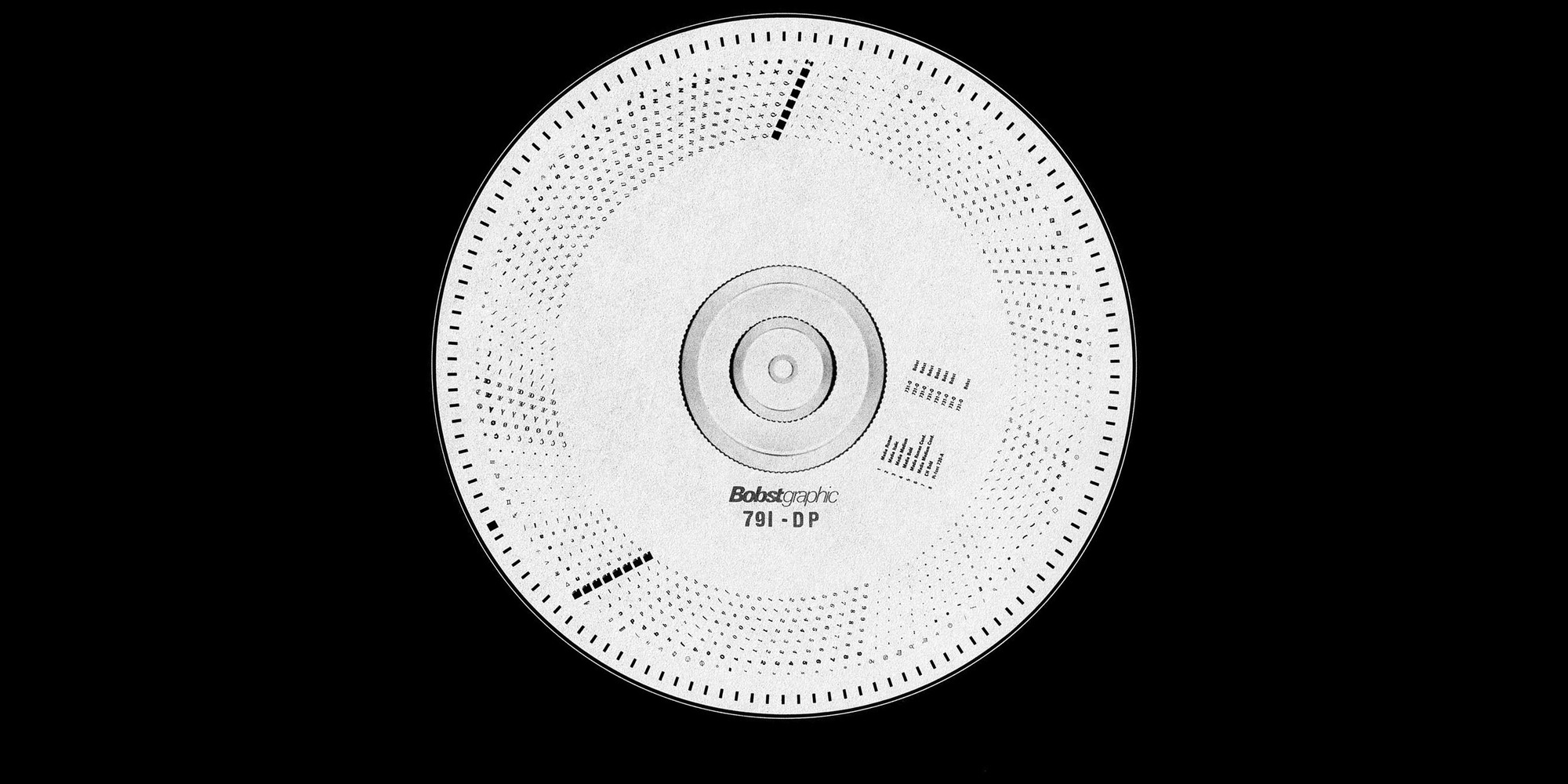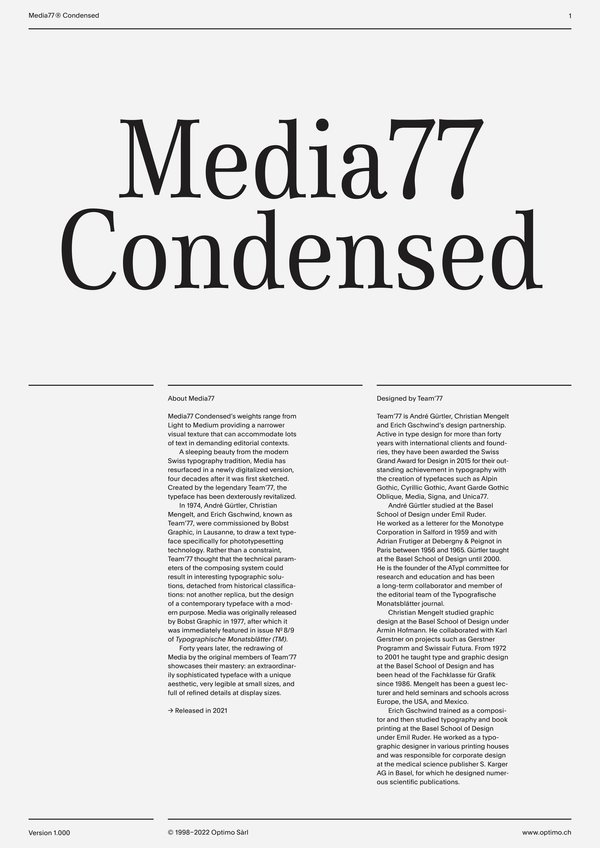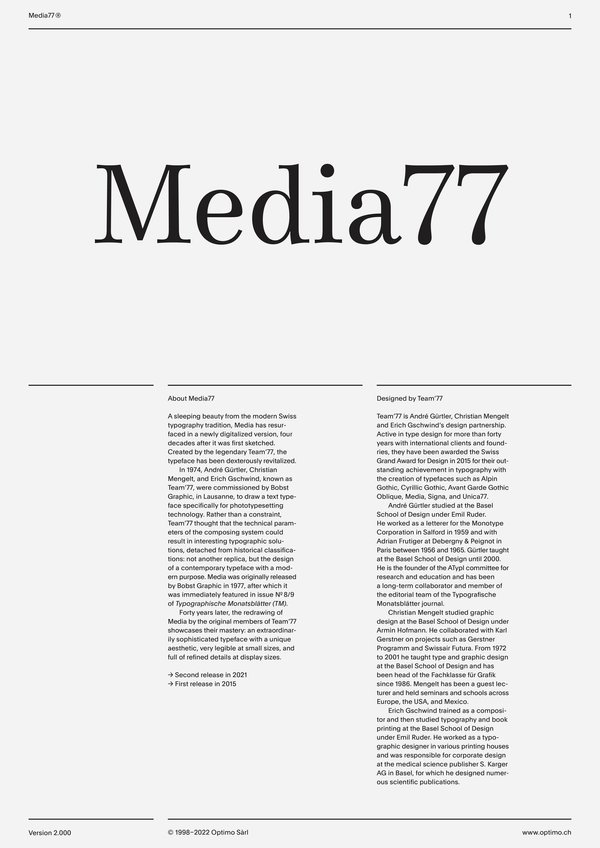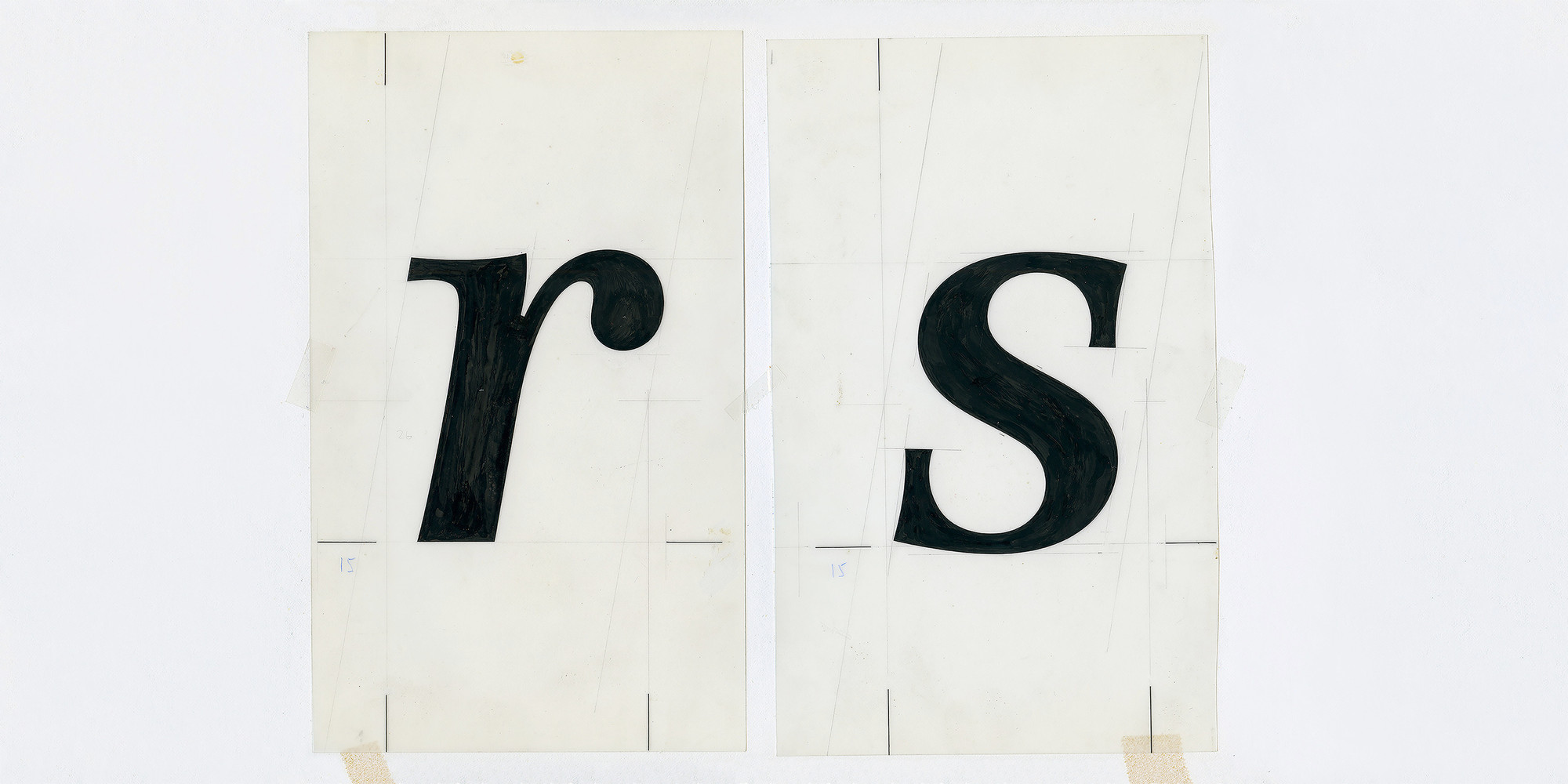
Media77
Media77 Condensed
Case Sensitive Forms
All Caps [cpsp]
Case Sensitive Forms [case]
This function formats the text in uppercase and adjusts spacing between all capital letters. It also applies the ‘Case Sensitive Forms’ feature which replaces certain characters with alternates that are better suited for all capital text, especially related to punctuation.
Contextual Alternates
Contextual Alternates [calt]
This feature adapts the position of a glyph after its surrounding context. For instance, a dash placed between two uppercase letters or numbers will be replaced by an uppercase version of the dash, slightly higher. This feature is usually active by default in Adobe applications.
Alternate at symbol
Stylistics Set [ss01]
This feature replaces glyph(s) with stylistic alternate(s).
Historical forms
Stylistic Set 7 [ss07]
This feature replaces glyph(s) with stylistic alternate(s).
Tabular Lining Figures
Tabular Lining Figures [tnum–lnum]
Based on the proportions of the capitals, lining figures have an invariable height. With the combination of the tabular spacing format, the width of each numeral is uniformized. This feature is useful when numerals need to all lined up. It facilitates the reading of numbers set within columns or tables. As some applications don’t have access to this feature, proportional figures are set as the default choice.
Proportional Oldstyle Figures
Proportional Oldstyle Figures [pnum–onum]
Based on the design of the lowercase, oldstyle figures have varying ascenders and descenders. Like most of the letters, each number has an appropriate width based on its shape. The combination of oldstyle figures with proportional setting generate numerals perfectly adapted for text.
Tabular Oldstyle Figures
Tabular Oldstyle Figures [tnum–onum]
Based on the design of the lowercase, oldstyle figures have varying ascenders and descenders. With the combination of the tabular spacing format, the width of each numeral is uniformized. This feature is useful when numerals need to all lined up. It facilitates the reading of numbers set within columns or tables.
Fractions
With this feature, any numbers separated by a slash will automatically turn into a fraction. To fit in fraction configuration, numerals have been designed smaller and their weights have been adjusted to suit the typeface.
Lowercase math symbols
Stylistic Set 6 [ss06]
This feature activates alternate lowercase positioning of mathematical symbols.
This feature replaces any letter following a numeral with its matching superior letters. French language uses the ordinal indicators such as ‘er’ for 1er premier, while Spanish, Portuguese and Italian require the feminine and masculine ordinals ‘a,’ ‘o’ for 1º, 1ª. Ordinals are designed to match the weight of the typeface.
Slashed Zero
Slashed Zero [zero]
Originally created to avoid the confusion between the ‘0’ and the ‘O’, this feature substitutes all zeros in a selected text by a slashed form of the zero.
Slashed Zero Oldstyle
Slashed Zero [zero]
Originally created to avoid the confusion between the ‘0’ and the ‘O’, this feature substitutes all zeros in a selected text by a slashed form of the zero.
Proportional Oldstyle Figures [onum]
Tabular figures are all of equal width. They are only needed when the figures must all line up from one line to the next, as in a table. Proportional figures have varying widths, just like most letters; each number has a width appropriate to its design. Lining figures are all the same height, usually similar to that of capital letters. They are needed for use with all-capital settings.
Multiply sign
Stylistic Set 20 [ss20]
This feature substitutes the letter “x” into the multiplication sign.
Numerators [numr]
This feature substitutes glyphs with their matching smaller alternates. The numerators are the same glyphs that are used to create fractions, their vertical position remains within the capital letters height. These glyphs are reduced in size and designed slightly heavier to keep them consistent with the rest of the font.
Forty years later, the redrawing of Media by the original members of Team’77 Christian Mengelt and Erich Gschwind showcases their mastery: an extraordinarily sophisticated typeface with a unique aesthetic, very legible at small sizes, and full of refined details at display sizes.